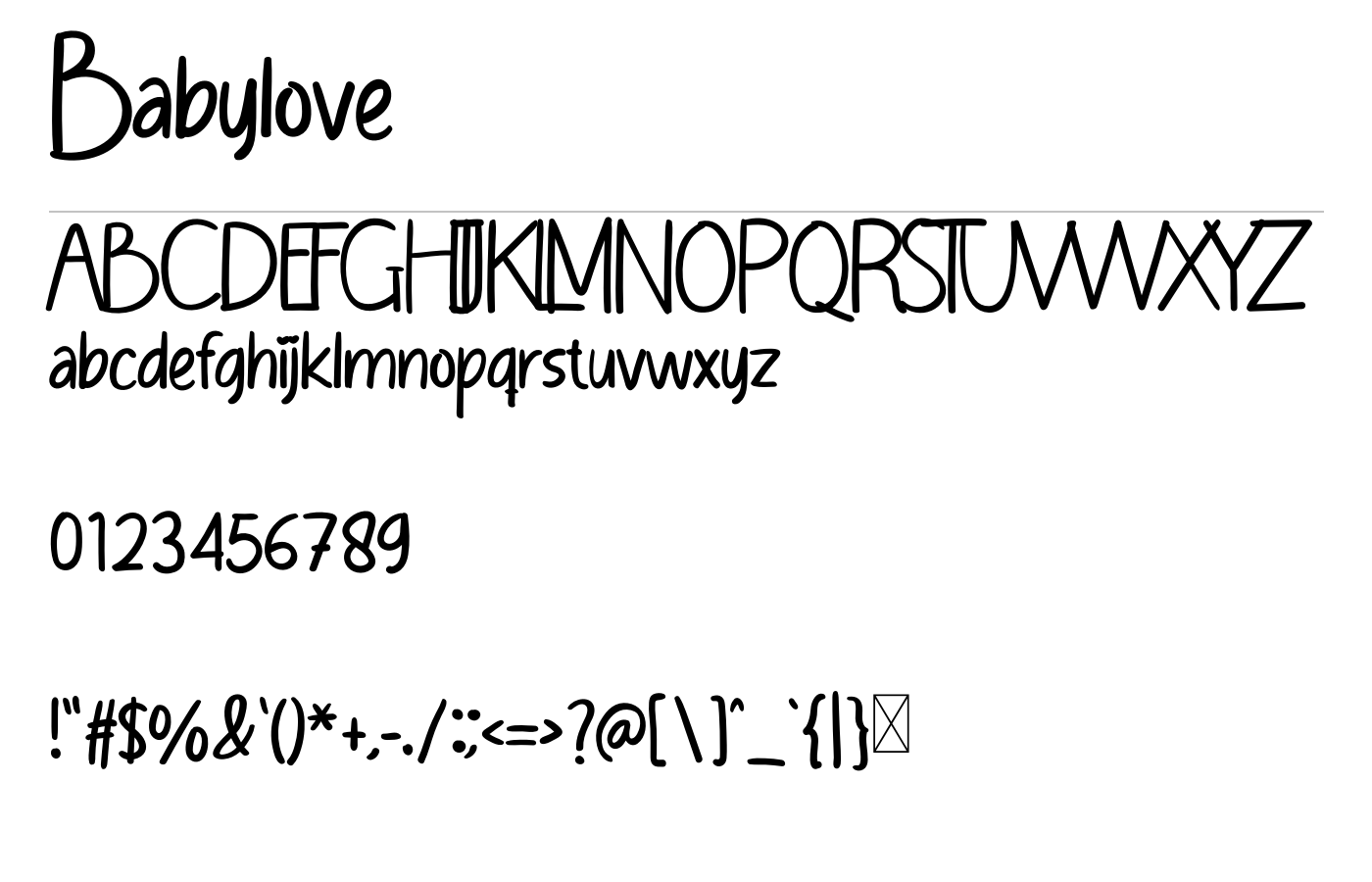
Babylove is a playful and casual handwritten sans serif font with a light weight and tall, narrow letterforms. Its slightly irregular strokes and friendly character shapes give it a warm, approachable feel ideal for informal or youthful branding, children’s products, and creative projects. This font works well in headlines, logos, and packaging where a personal, cheerful touch is desired.
Babylove Font